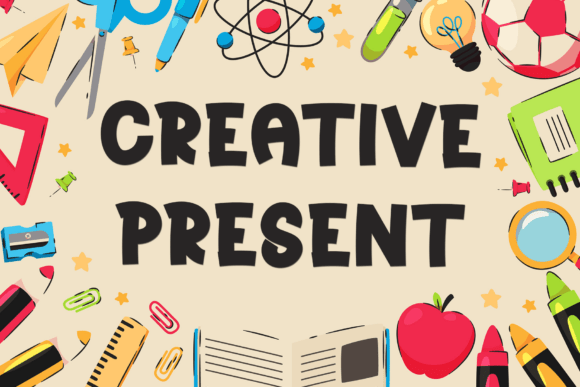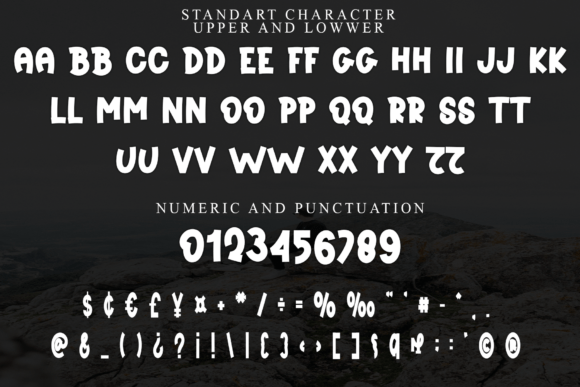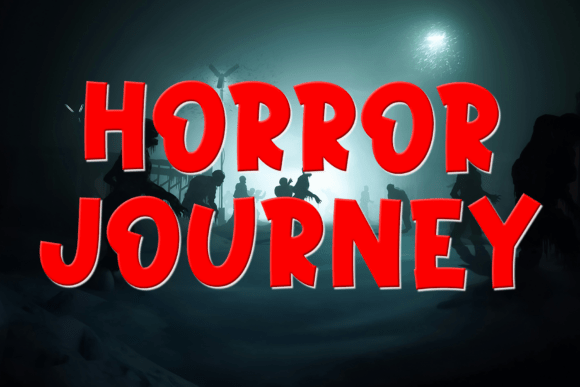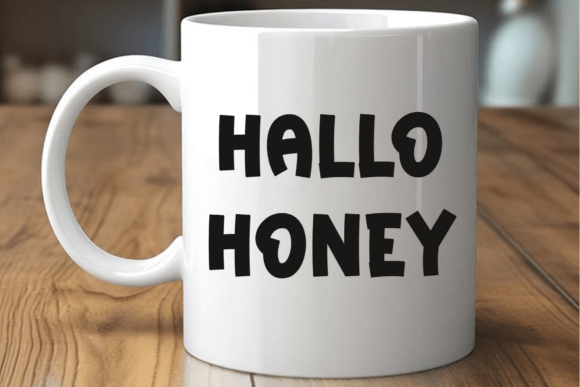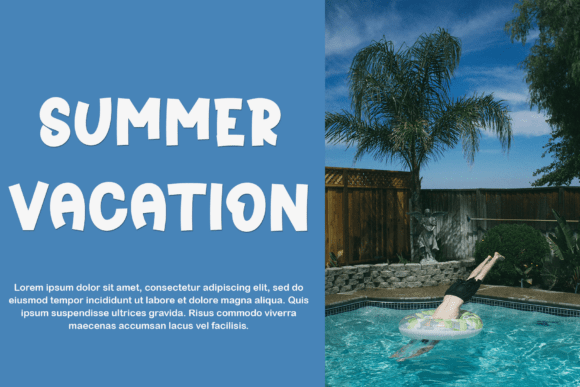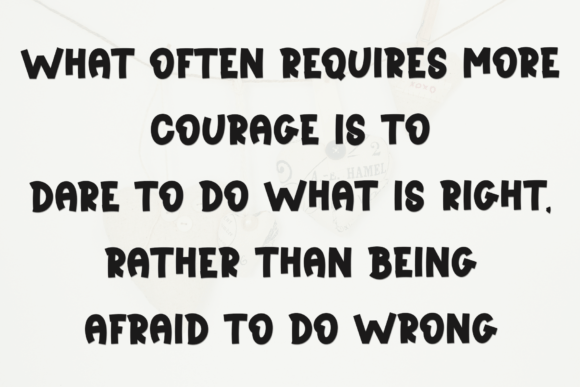
Unlock the Power of Happy Varcity Font: Elevate Your Creative Projects
Have you ever stumbled upon a font that perfectly captures the essence of your creative vision? For designers, finding that one special font can be a game-changer. It’s a moment that sparks inspiration, ignites passion, and fuels the creative process. For many, that moment arrived with the discovery of the Happy Varcity Font.
This beautiful and eye-catching font is designed with a soft, unique touch, making it perfect for design projects, crafts, and other creative works. Its distinctive strokes give it a special character, making it meaningful and versatile for future use. As a valuable tool for designers, Happy Varcity Font is compatible with various applications, including Windows and open-source platforms.
Happy Varcity Font Key Features
- Font Family: Happy Varcity is a sans-serif font family with a modern and playful design.
- Unique Characteristics: Features a unique blend of rounded edges and geometric shapes, giving it a friendly and approachable feel.
- Kerning and Ligatures: Includes advanced kerning and ligature features for improved readability and aesthetic appeal.
Happy Varcity Font Review
Overall, I think Happy Varcity Font is a delightful addition to any design project. ✨ The font’s playful and cheerful vibe is perfect for creating a lighthearted atmosphere. The font’s rounded edges and smooth curves make it a joy to work with, and the wide range of weights and styles ensures that you can use it in a variety of contexts.
Here are some of the things that I think work particularly well with Happy Varcity Font:
- ✨ The font’s versatility: it works well for both digital and print projects
- ✨ The range of weights and styles: from light to bold, and from sans-serif to script
- ✨ The font’s playful vibe: it’s perfect for creating a fun and lighthearted atmosphere
However, there are a few limitations that I think are worth noting:
- ⚠️ The font may not be suitable for formal or professional projects
- ⚠️ Some of the lighter weights may be difficult to read in certain contexts
Overall, I think Happy Varcity Font is a great choice for designers who want to add a touch of playfulness to their projects. While it may not be suitable for every project, it’s definitely worth considering for anything that needs a lighthearted and cheerful vibe.
Happy Varcity Font is ideal for:
- Creating playful and modern designs.
- Adding a touch of whimsy to your typography.
- Designing for social media, blogs, or websites.
For optimal results, use Happy Varcity Font in combination with bold colors and creative graphics.
Alternatives to Happy Varcity Font
Great Vibes is a modern, handwritten font that exudes a sense of playfulness and creativity. It’s perfect for designers who want to add a touch of whimsy to their projects. Unlike Happy Varcity, Great Vibes has a more organic feel and is ideal for use in headings, titles, and other attention-grabbing elements.
Alex Brush is a beautiful, elegant script font that’s great for adding a touch of sophistication to designs. It’s perfect for use in branding, packaging, and other applications where a high-end look is desired. Unlike Happy Varcity, Alex Brush has a more refined, polished feel and is ideal for use in body text and titles.
Dancing Script is a lively, handwritten font that’s perfect for designers who want to add a touch of energy to their projects. It’s ideal for use in headings, titles, and other attention-grabbing elements. Unlike Happy Varcity, Dancing Script has a more dynamic feel and is great for use in digital media, such as social media and advertising.
Carolyna Pro is a modern, elegant script font that’s perfect for designers who want to add a touch of sophistication to their projects. It’s ideal for use in branding, packaging, and other applications where a high-end look is desired. Unlike Happy Varcity, Carolyna Pro has a more refined, polished feel and is great for use in body text and titles.
What is the recommended font size and line height for Happy Varcity Font?
The recommended font size for Happy Varcity Font is between 12pt and 14pt, depending on the context and design requirements. For body text, a line height of 1.2 to 1.5 times the font size is recommended to ensure readability and visual balance.